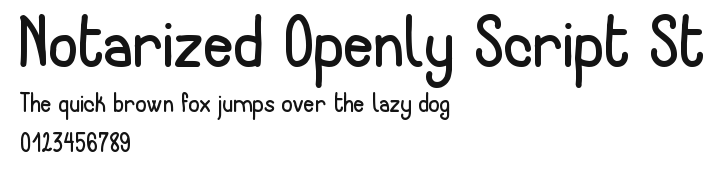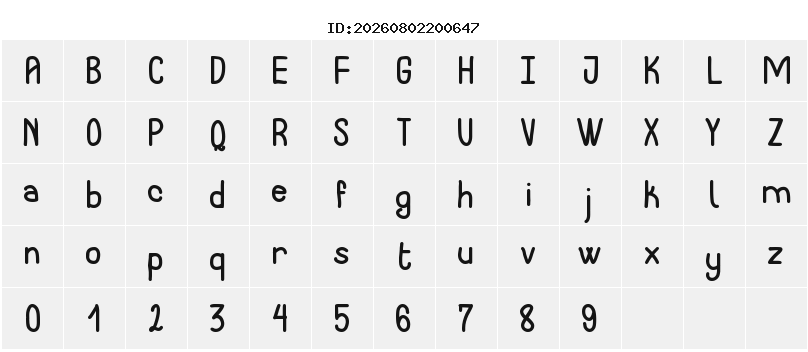
• Font Name: Notarized Openly Script St
• Full Font Name: Notarized Openly Script St
• Designer: This font is an original work of southype dot com
About Notarized Openly Script St.ttf
Notarized Openly Script St.ttf is a modern, elegant sans-serif font designed for ultimate readability and visual harmony. Perfect for branding, headlines, web design, and print materials.